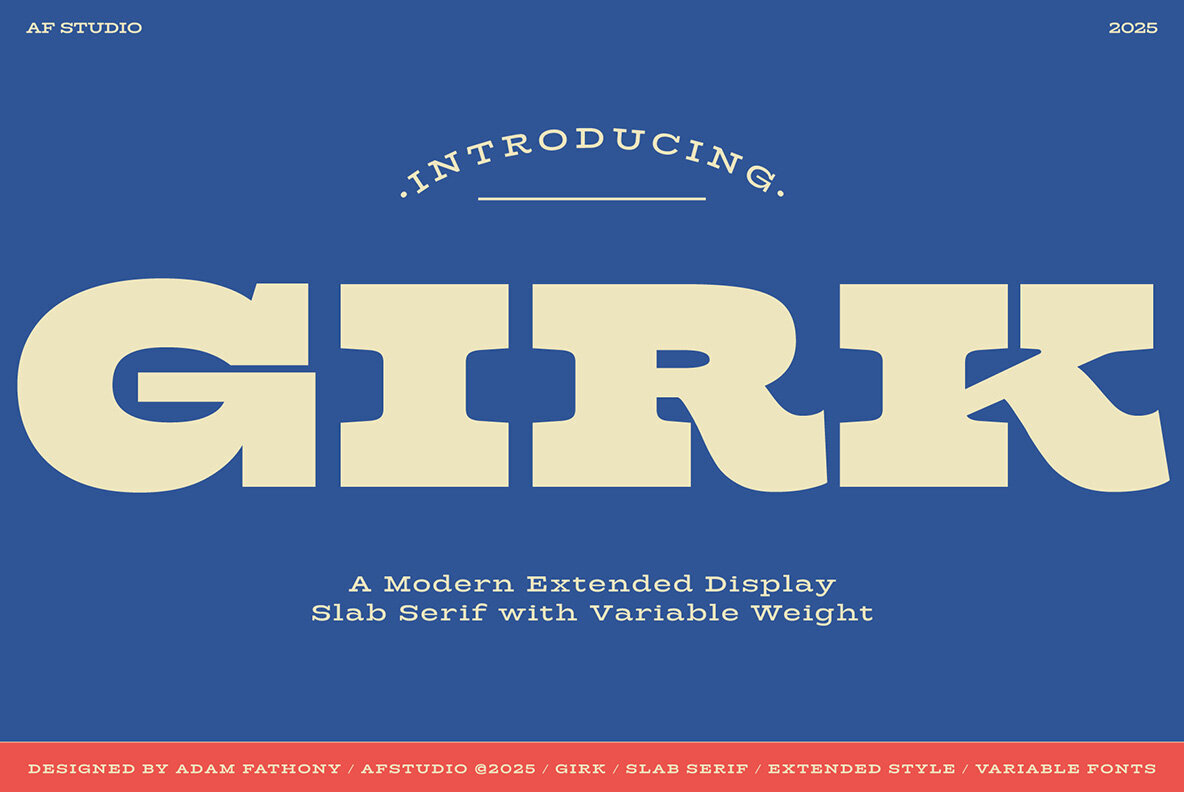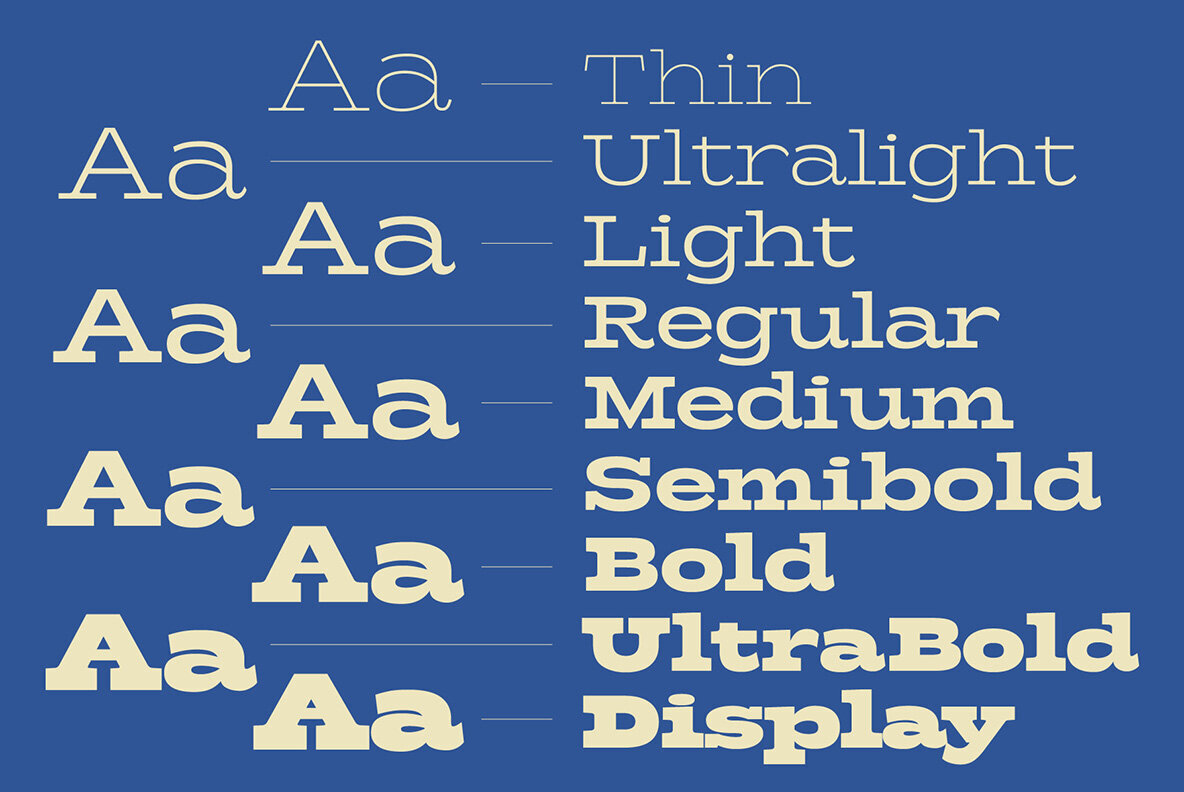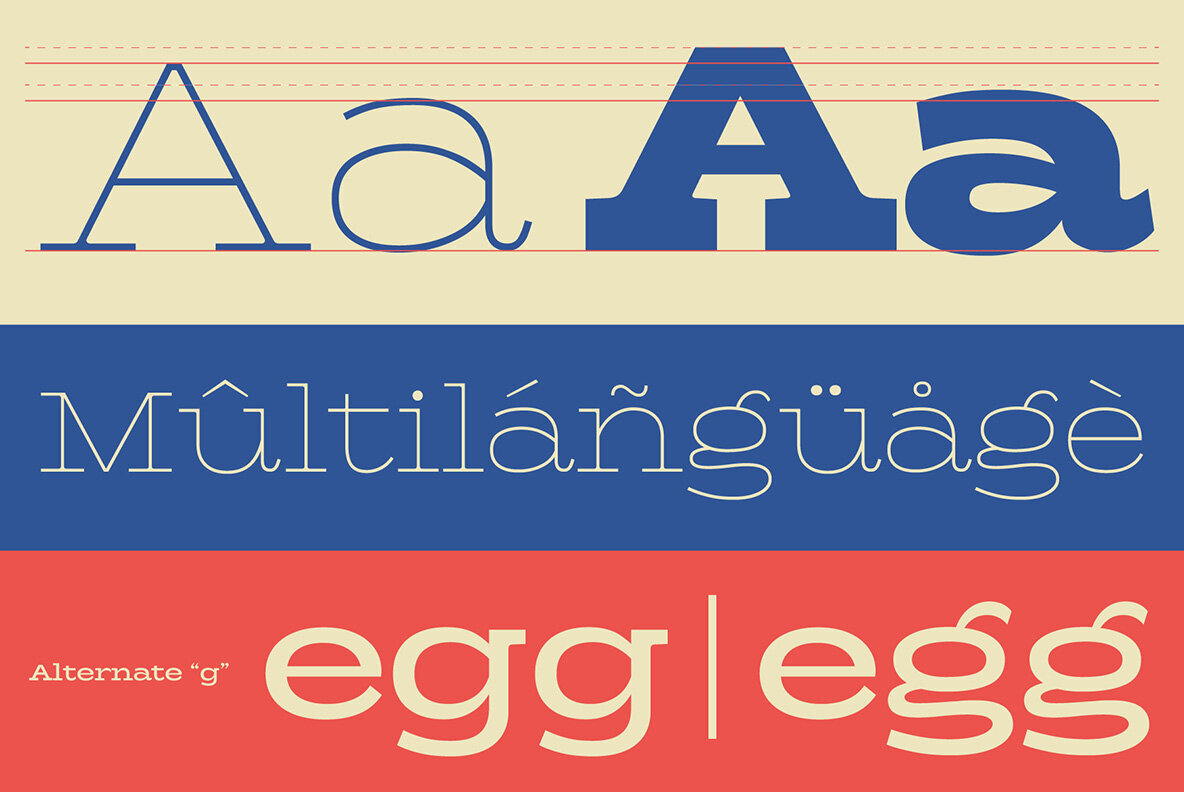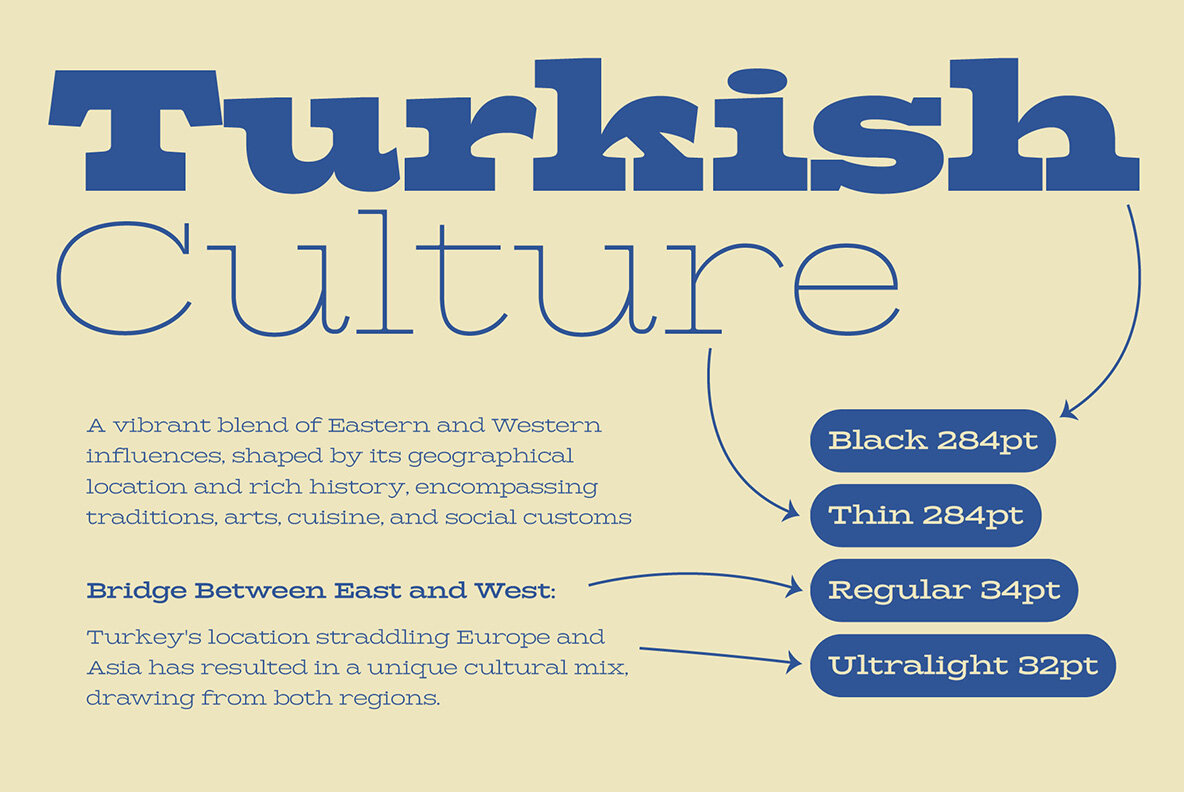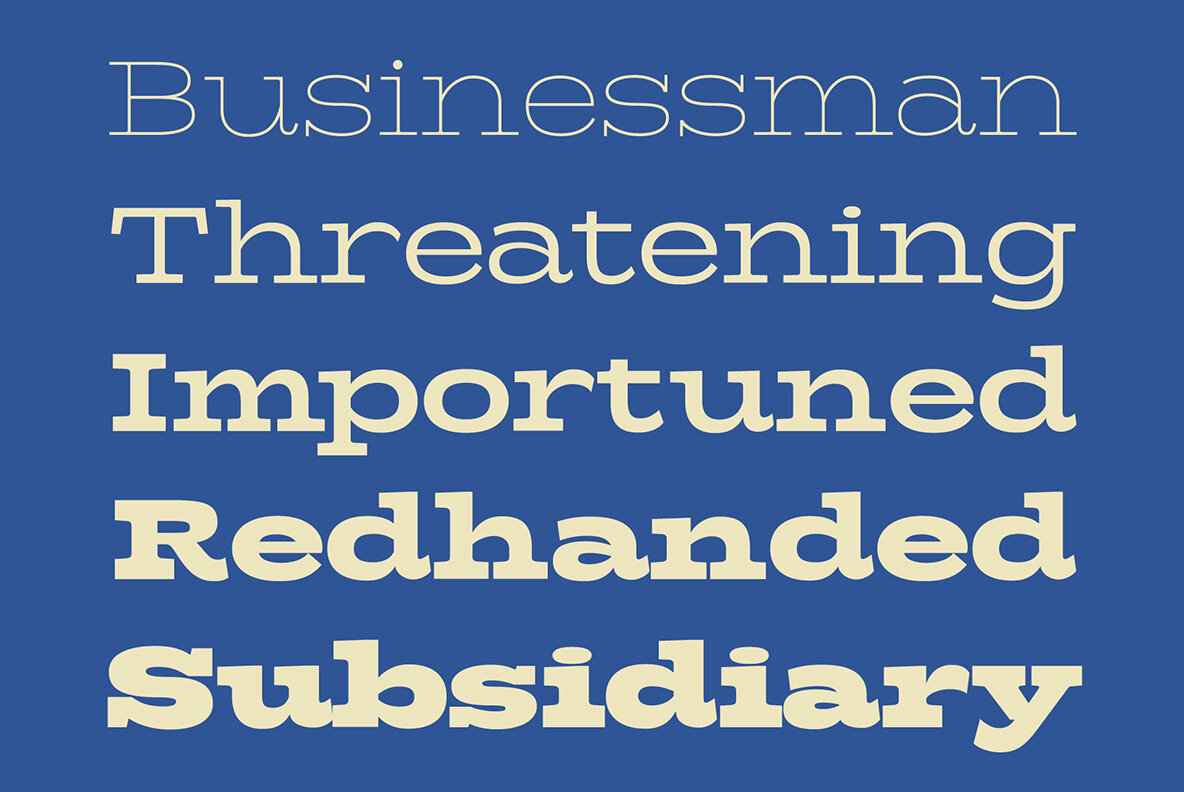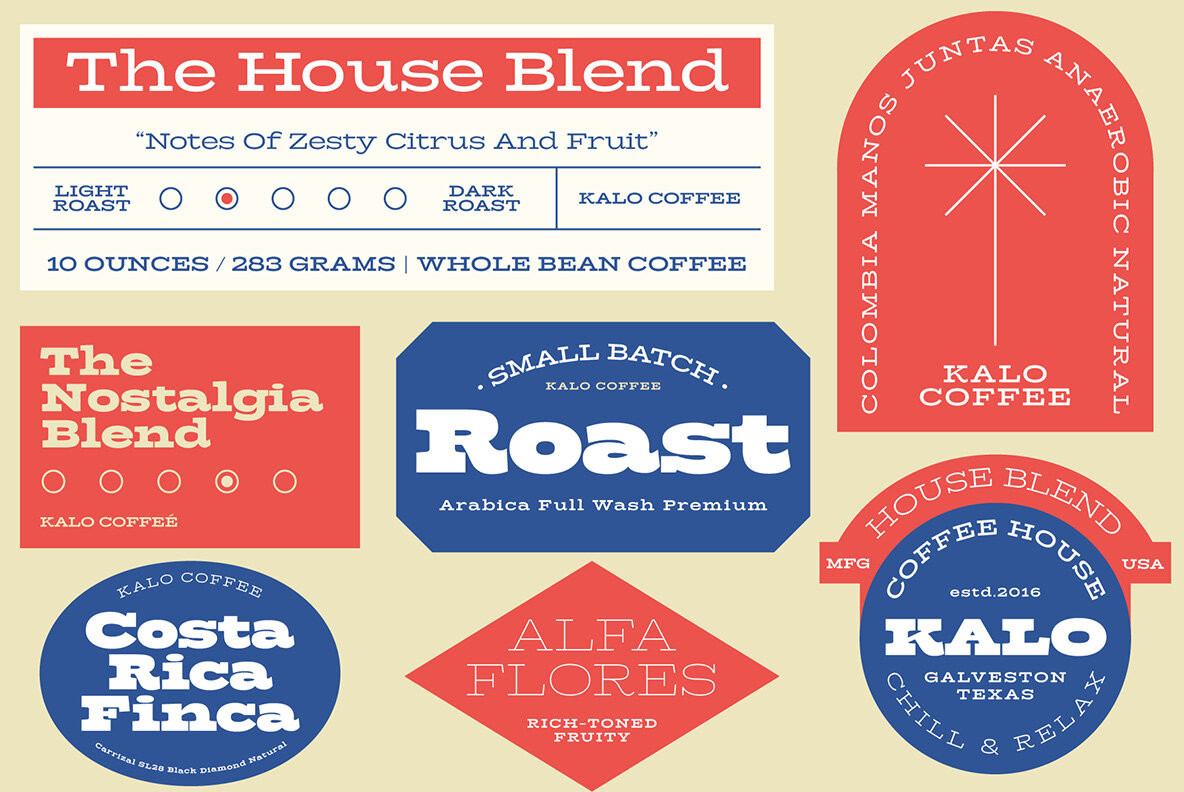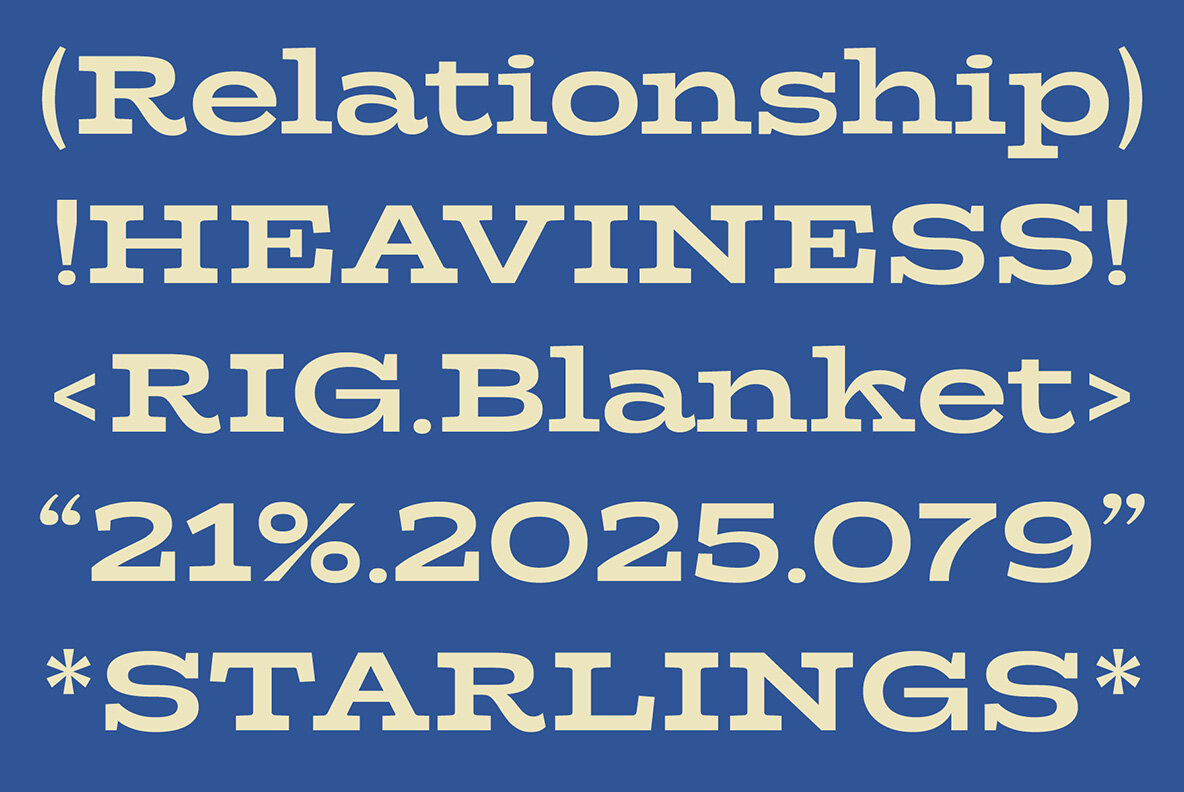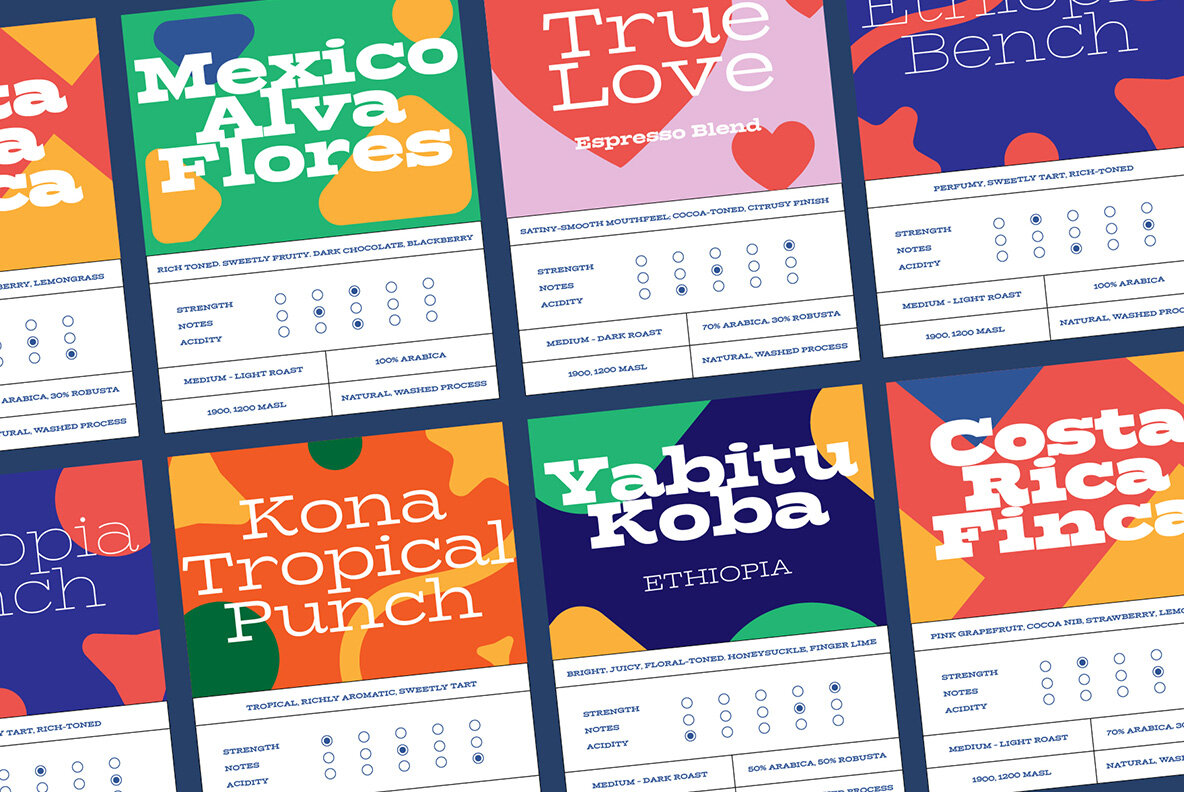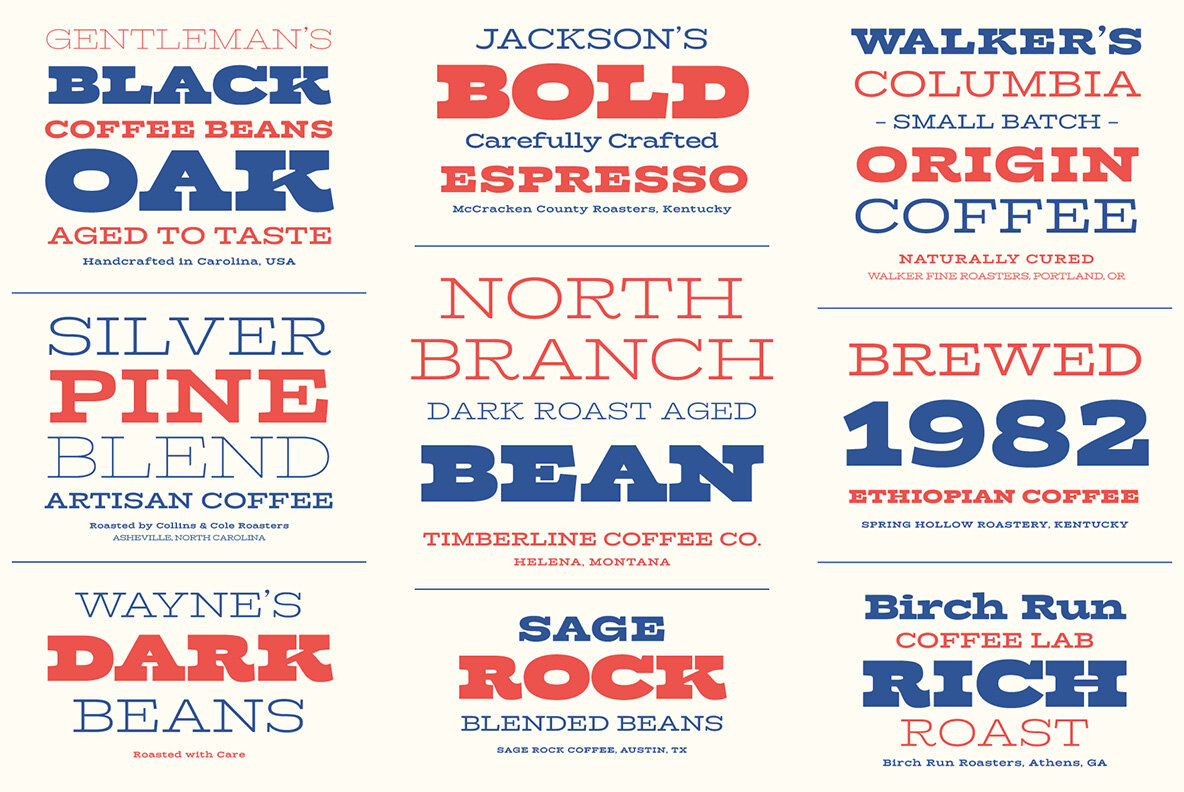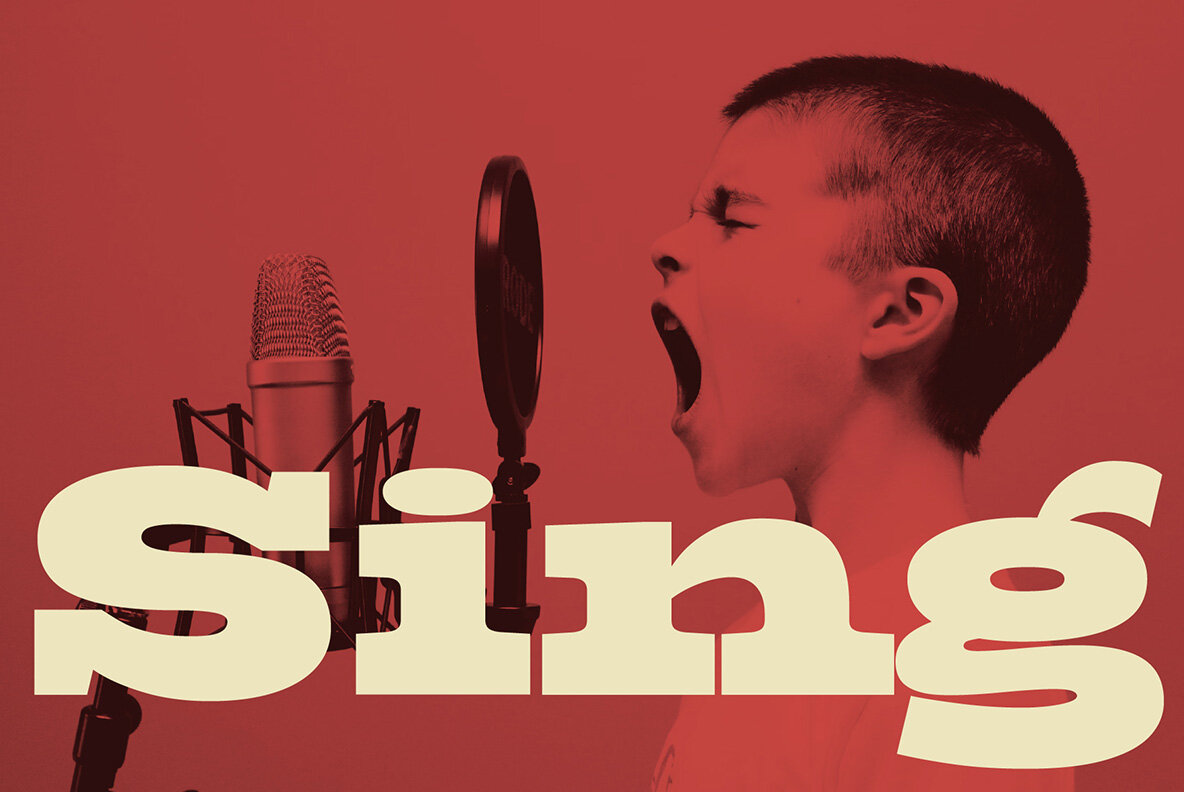
Girk Font
Bold and confident, Girk is a versatile slab serif display typeface designed for standout headlines and vibrant identities. Its extended width and modern tone strike a balance between retro charm and contemporary precision, making it ideal for expressive packaging and unique editorial work. Girk is crafted to communicate with clarity and unmistakable style, perfect for coffee packaging, vintage-inspired branding, and experimental web typography.Girk: Modern Slab Serif Display